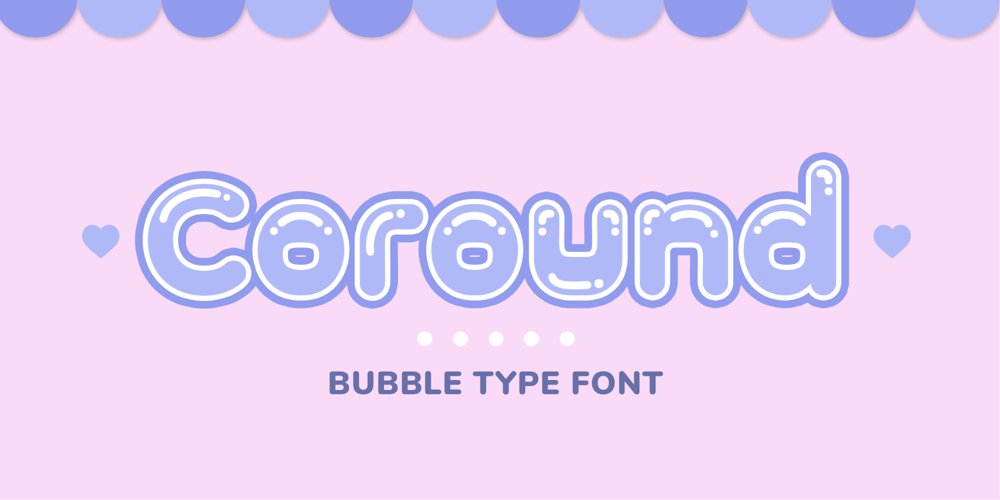
Coround Font Family was designed by Heri Imanudin and published by Krafted. Coround contains 1 styles and family package options. Coround is a cute font that features round and smooth edges and playful and friendly vibes. Each character pops with personality, making it perfect for creating eye-catching designs for logos, posters, and more!